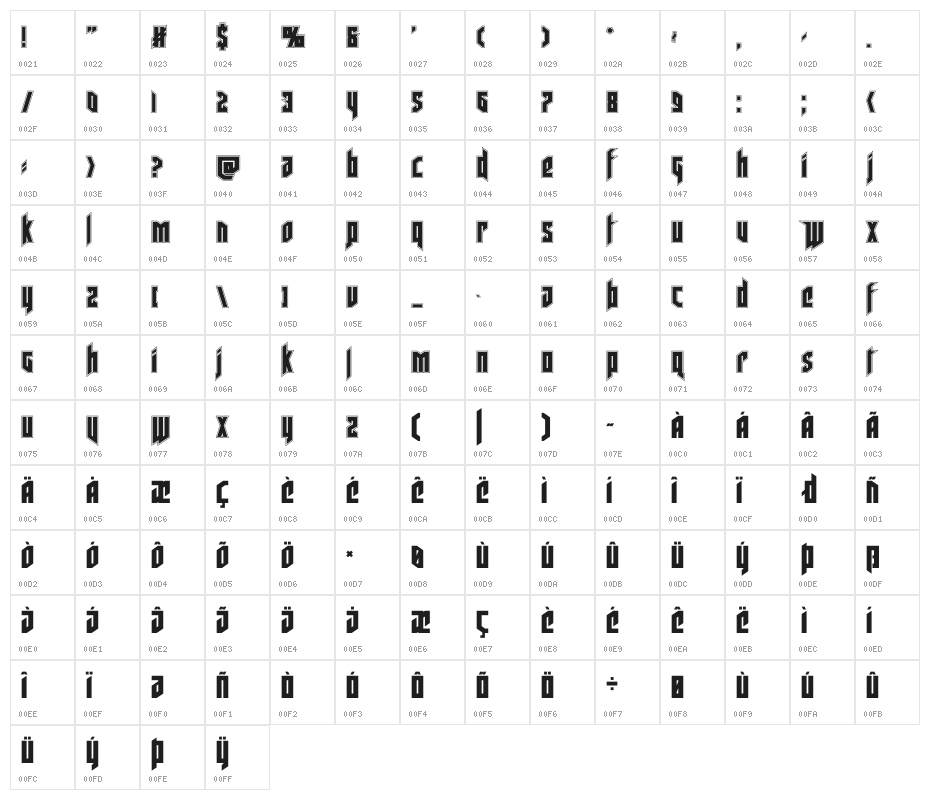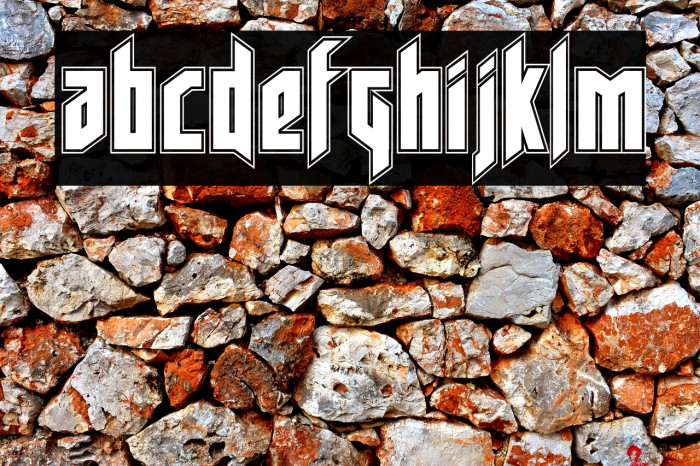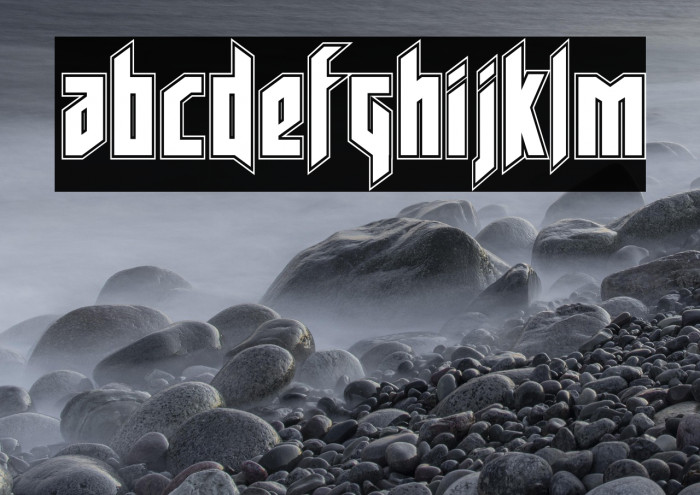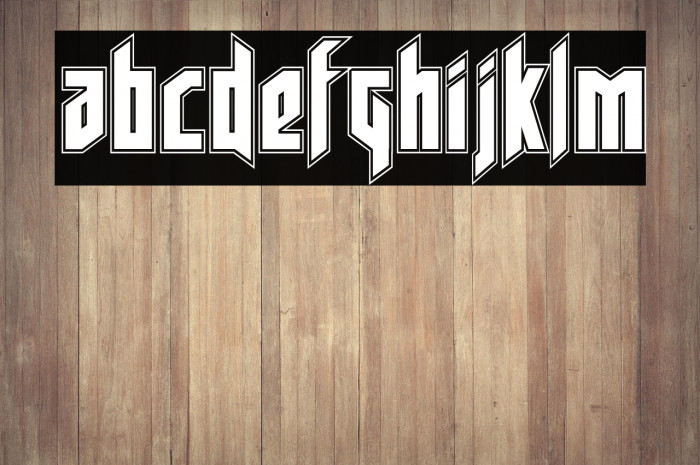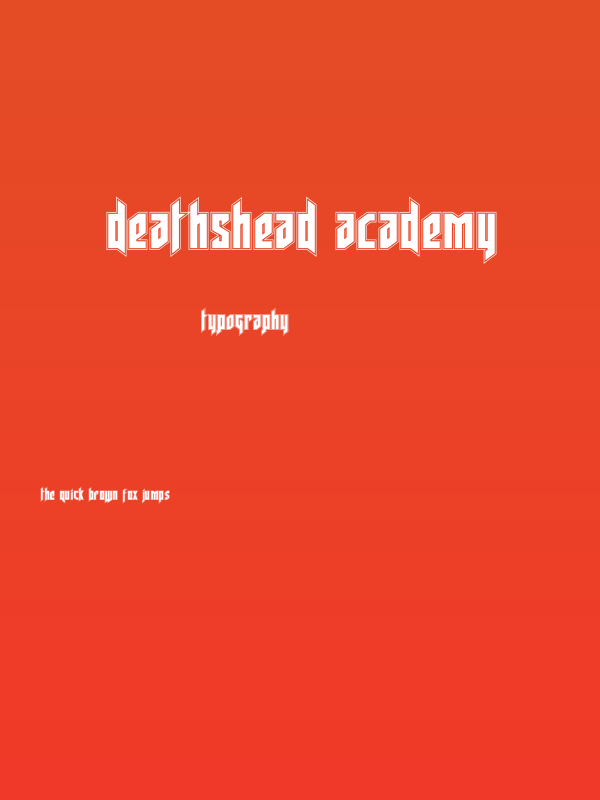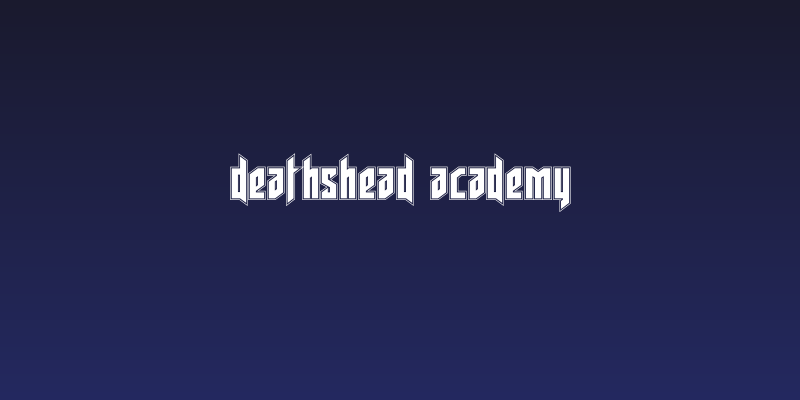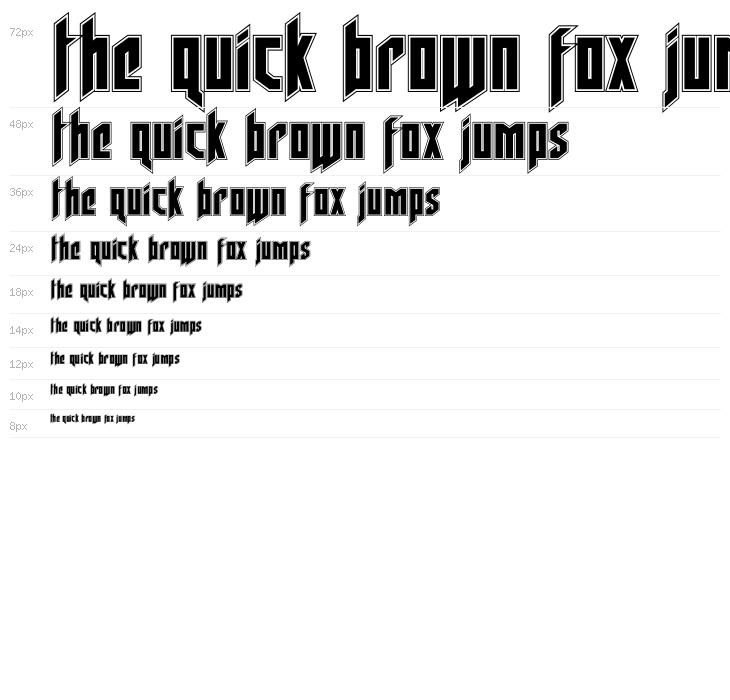
Deathshead Academy Font
Deathshead Academy Description
This font features a bold, angular design with a strong presence. Its sharp edges and geometric shapes give it a distinct, modern look that is both eye-catching and assertive. The uppercase and lowercase letters maintain a consistent style, with a heavy emphasis on vertical and diagonal lines. Numbers and special characters are designed to match the overall aesthetic, ensuring a cohesive appearance across all text. The font's boldness and unique style make it ideal for projects that require a strong visual impact.
| Proposed Projects | Ideal for branding, posters, album covers, and any design requiring a strong, impactful typeface. |